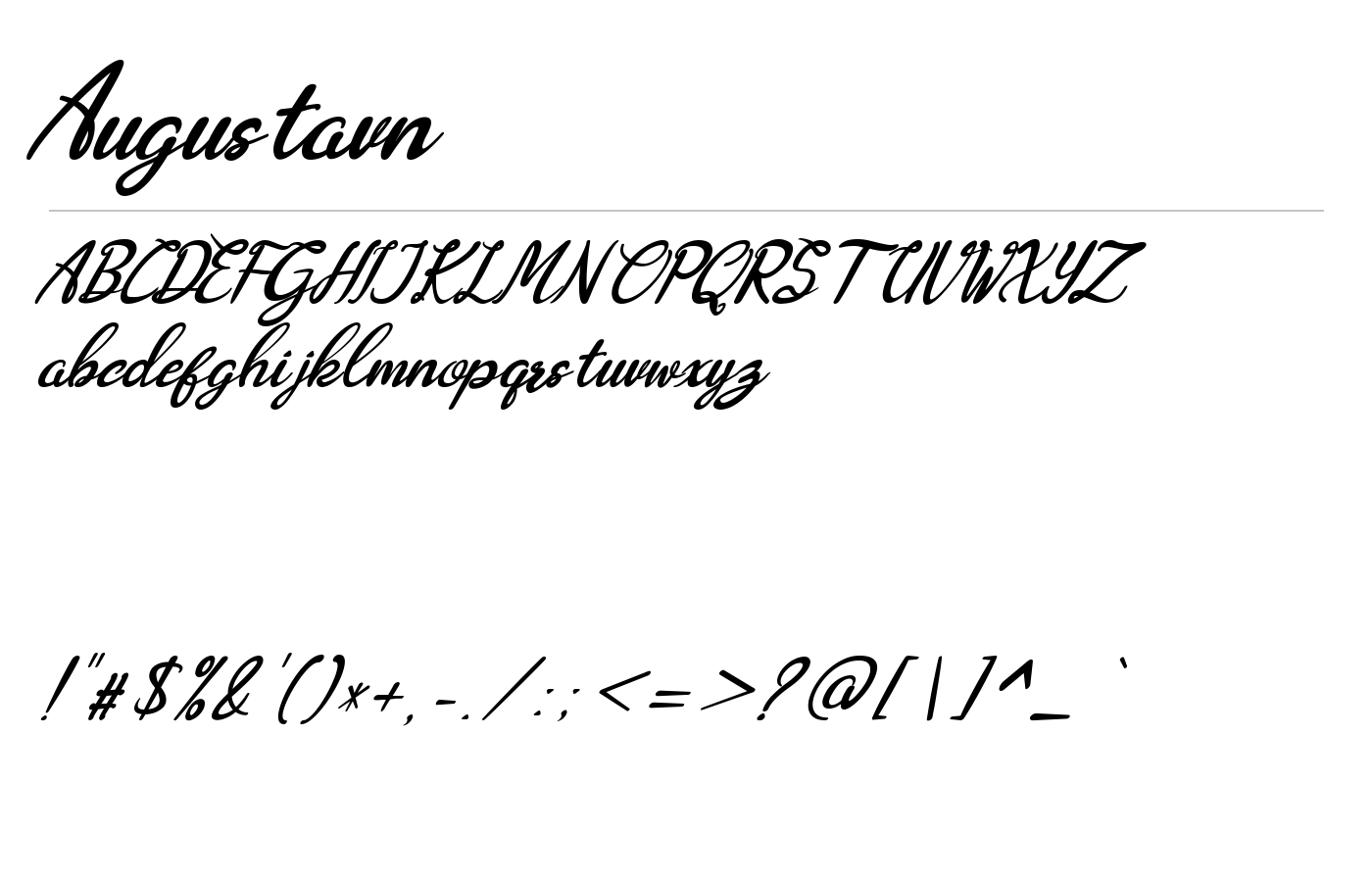
Augustavn is an elegant script font with a flowing, handwritten style that features smooth, cursive strokes and a medium weight. Its high contrast and slightly narrow width give it a refined, sophisticated look, making it ideal for uses where a personal yet polished touch is desired, such as branding, invitations, or luxury packaging. This font conveys warmth and class with its classic letterforms and distinctive, stylish curves.
Augustavn Font
About Augustavn Font
| Font family | Augustavn Font |
| Designer | Ardian Arfi |